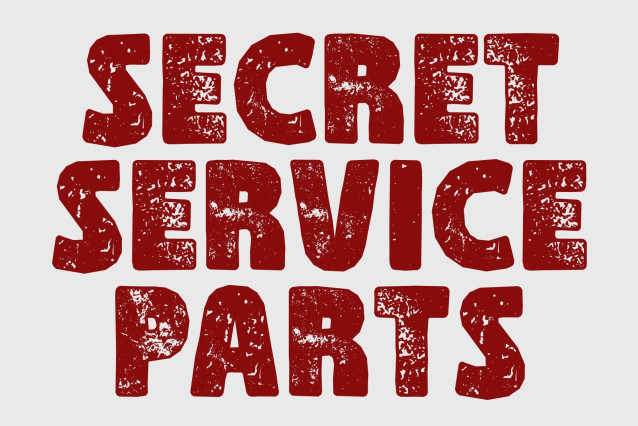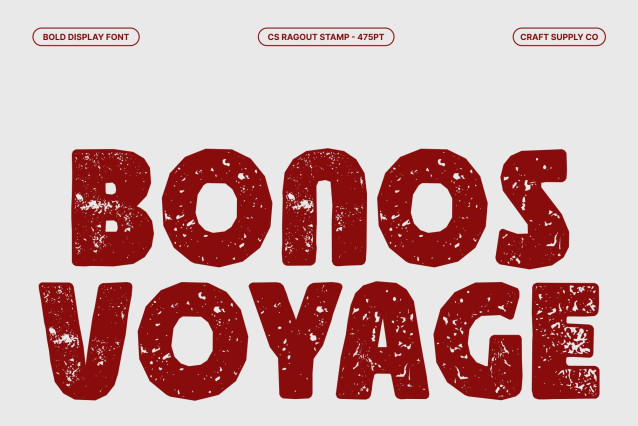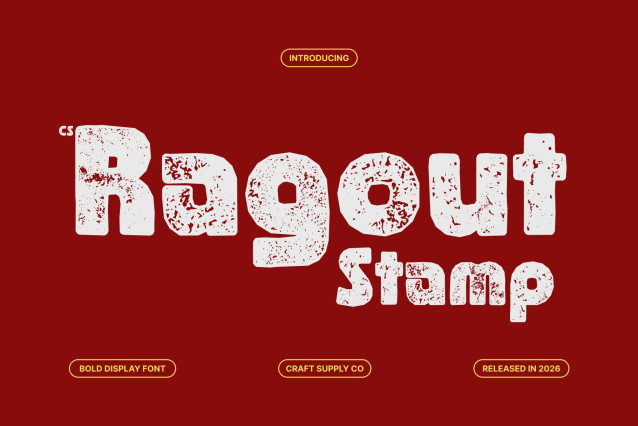
CS Ragout Stamp Font
CS Ragout Stamp – Bold Display Sans Serif Font: Where Powerful Impact Meets Vintage Expression
Strong Modern Forms with Energetic Personality
This is a bold display sans serif font designed to command attention through strong modern shapes and confident visual presence. Its solid structure and impactful proportions create an energetic atmosphere filled with strength, playfulness, and expressive character. Every letter is crafted to stand out boldly, making the font perfect for eye-catching display compositions and memorable visual identities.
Bold Contemporary Style with Dynamic Appeal
This font delivers a typographic voice that feels powerful, stylish, and highly engaging. Its bold forms create a commanding rhythm while preserving a playful personality, resulting in a versatile typeface ideal for energetic and creative design projects.